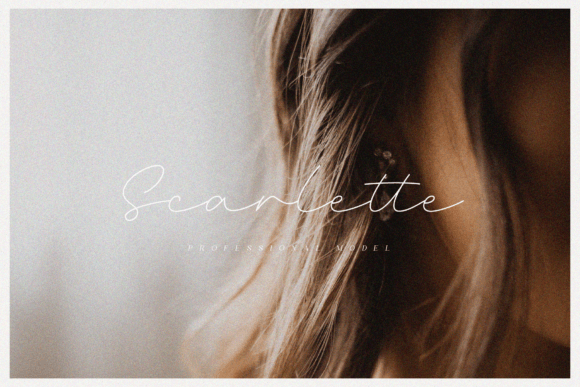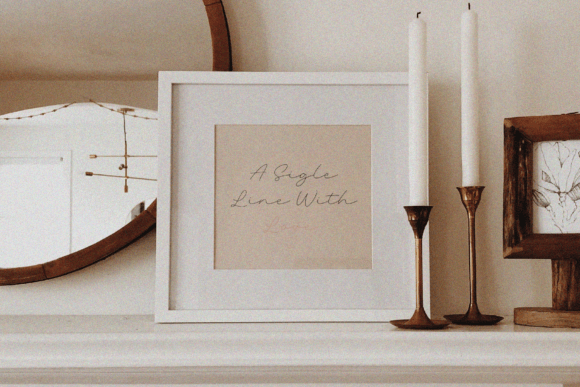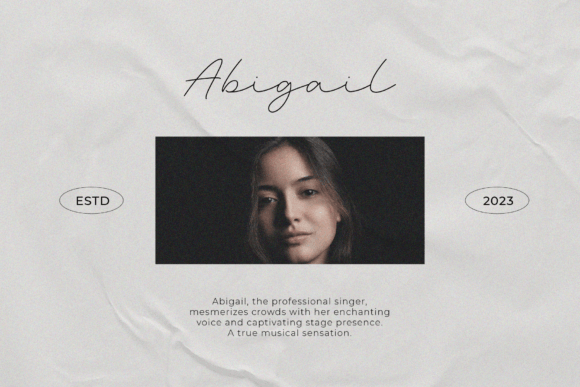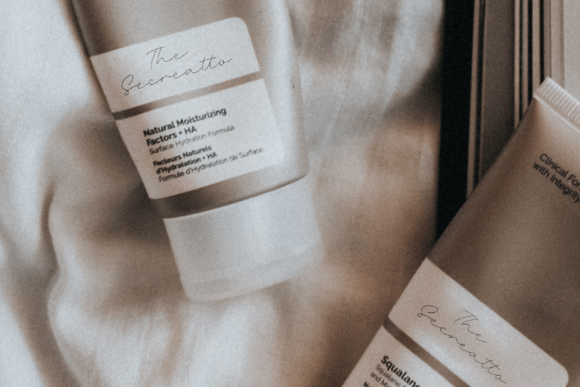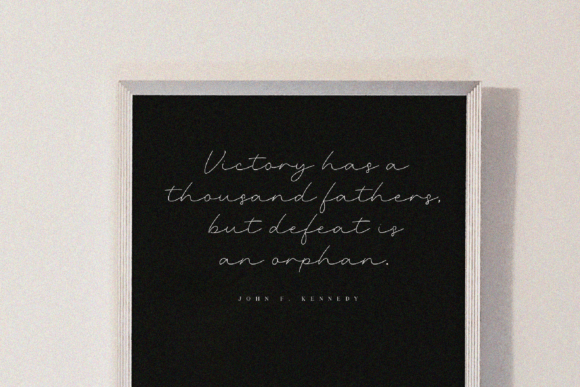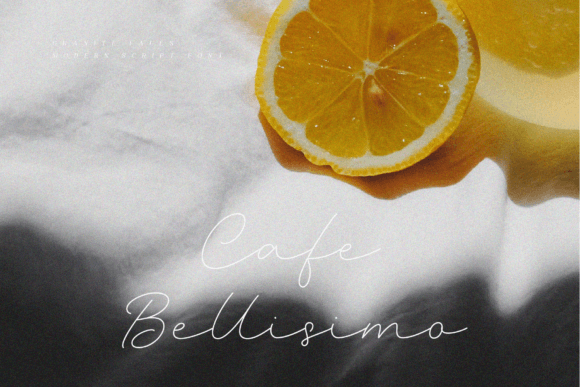
Introduction to Granite Falls Font
Introducing Granite Falls, a captivating modern font that effortlessly blends elegance with contemporary style.
With its sleek lines and refined letterforms, this font brings a touch of sophistication to any project .
Key Features of Granite Falls Font
Why Choose Granite Falls Font?